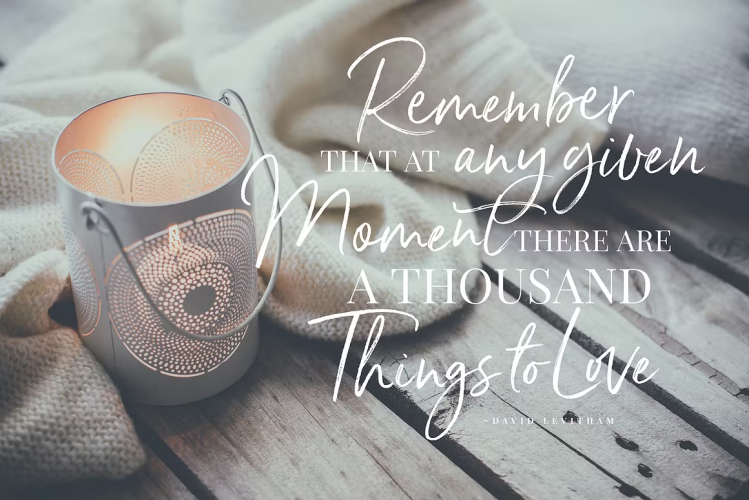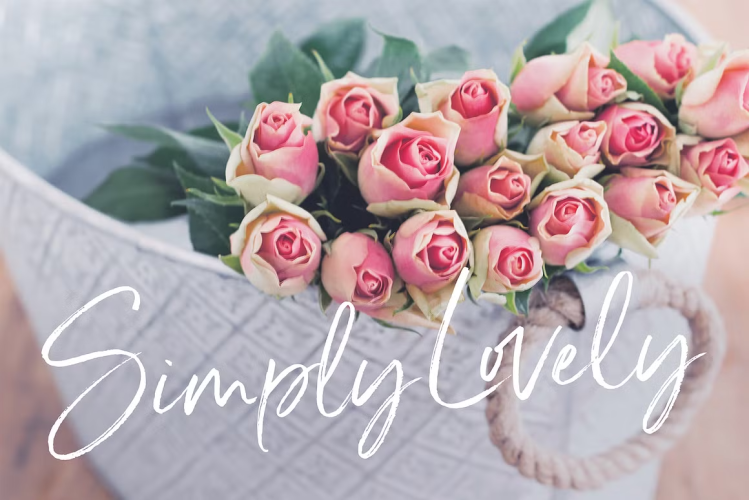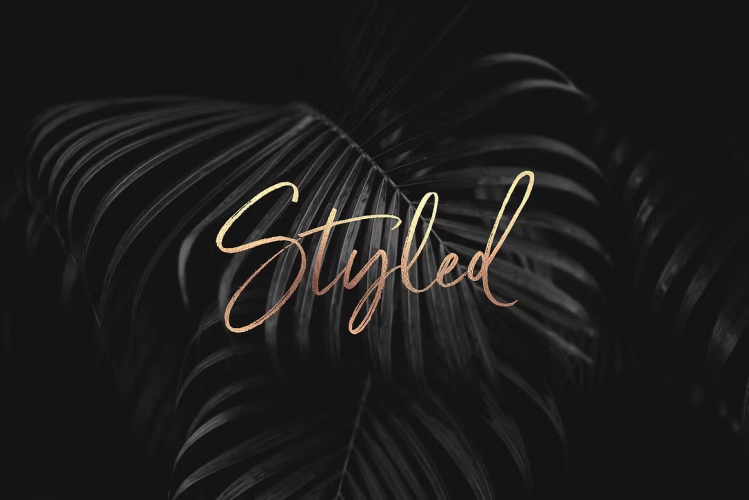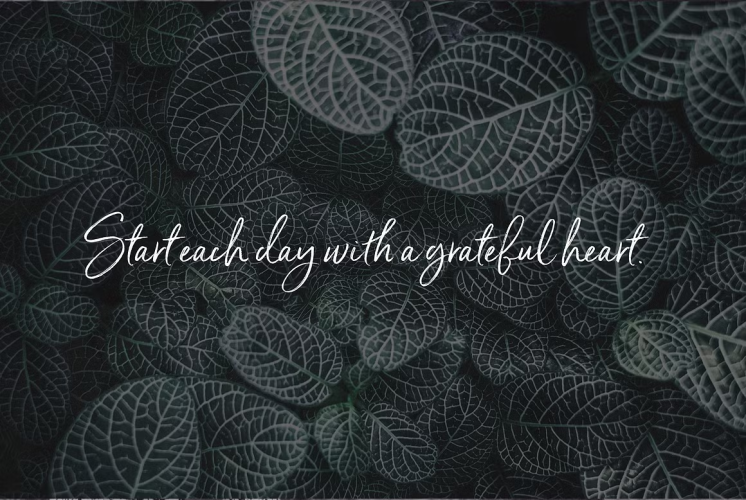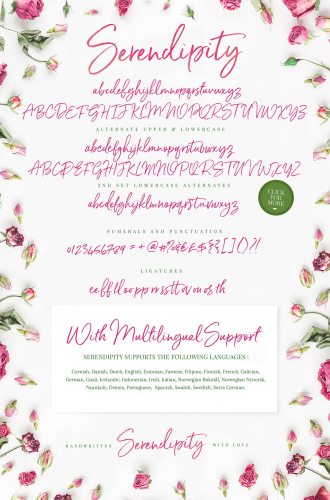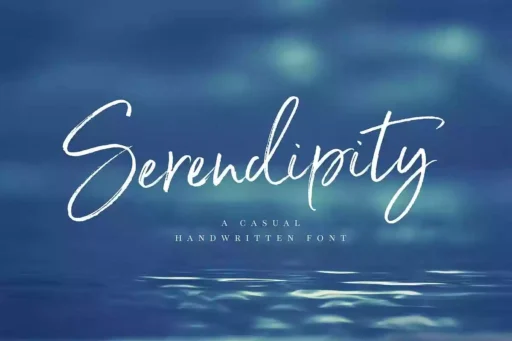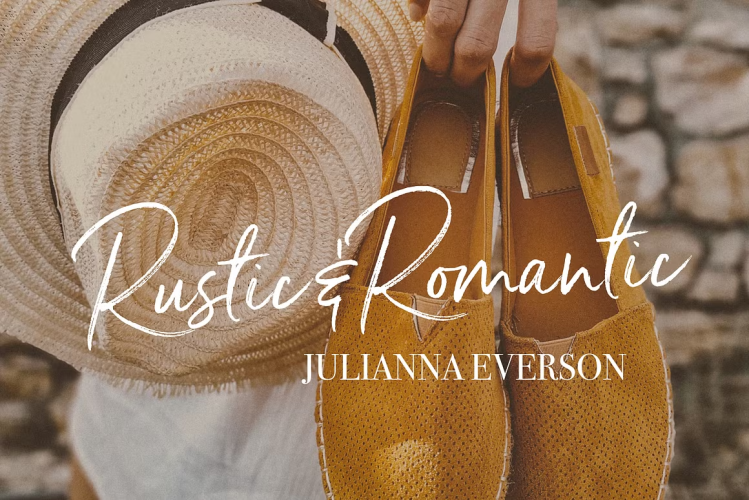
Serendipity Font
Serendipity is a peaceful and charming brush script font written by Love. It is an exquisite sibling of the Saturday Script in style, with elegance, grandeur, and colour.
Serendipity stands out because the word “extras,” extra letters, brings so much, you can say, in a million different ways. It comprises two complete sets of substitute lowercase letters, a set of substitute uppercase letters, and a set of double-letter ligatures—all designed mainly to pick any and choose the best one that meets your taste.
Serendipity Font is a Script And Handwritten font that brings a professional and versatile look to your projects. Serendipity is a peaceful and charming brush script font written by Love.